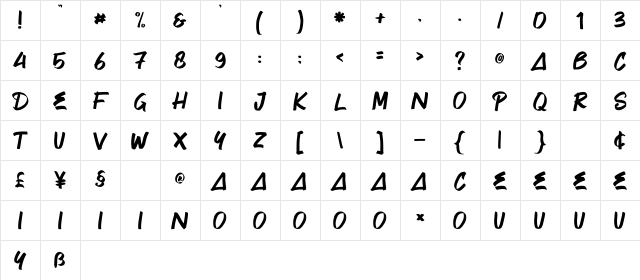
Urban Retro Regular Free Font
Urban Retro Regular
Designer: Sigit Dwipa
Complete Urban Retro Regular glyph index. Displaying only characters natively supported by Urban Retro Regular font.
Design Context for Urban Retro
Urban Retro wears its vintage influences proudly, with letterforms that recall mid-century signage, classic packaging, and nostalgia-driven design.
Font Pairing: Combine Urban Retro with a simple slab or neutral sans - period-accurate companions reinforce the vintage feel without competing for attention.
Pro Tip: Lean into Urban Retro's period character by pairing it with aged paper textures, muted colour palettes, and vintage illustration styles.